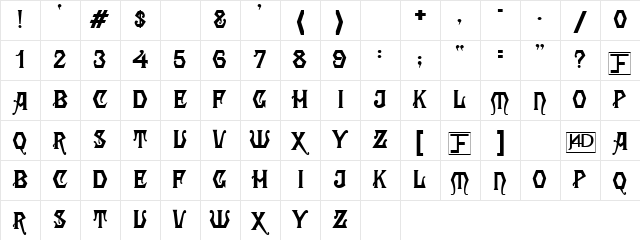
Angular Normal
Design Context for Angular Typeface
Angular is a composed and adaptable typeface that performs quietly and consistently across a wide range of design contexts.